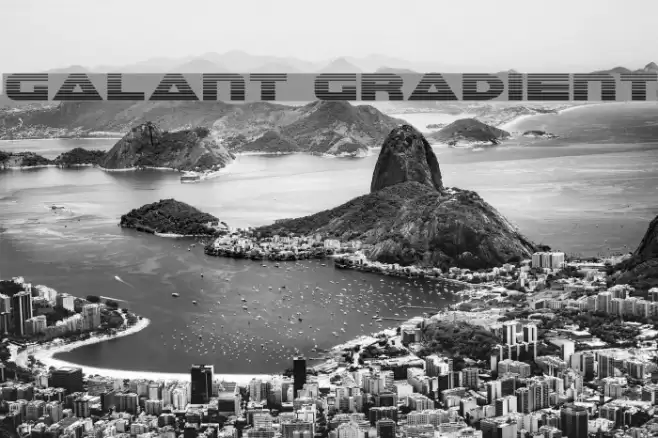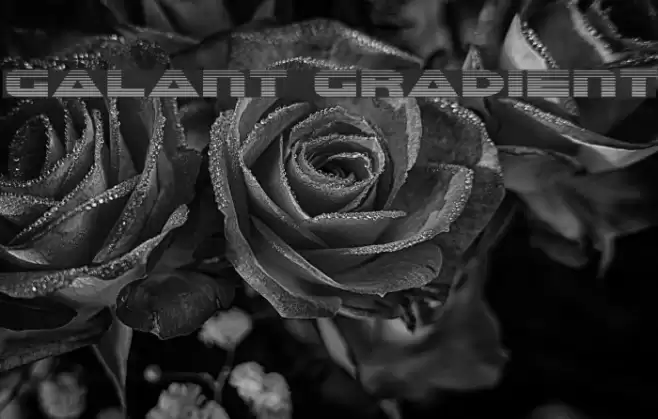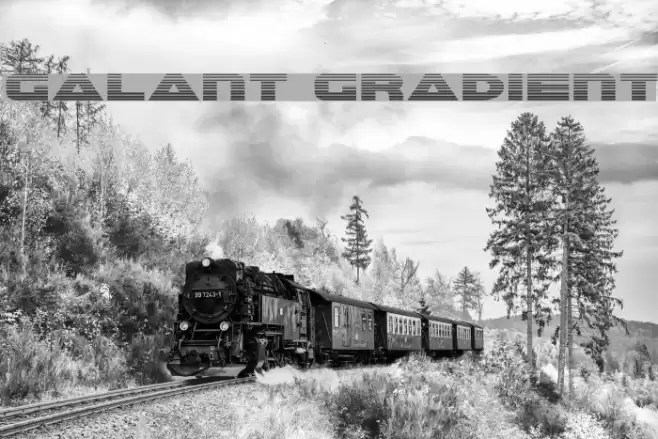
Galant Gradient Font
Galant Gradient Description
This font features a unique and striking design characterized by horizontal lines that create a gradient effect across each character. The bold, geometric shapes are modern and futuristic, giving the font a distinct visual appeal. The uppercase and lowercase letters maintain a consistent style, with the horizontal lines providing a sense of movement and depth. The numerals and special characters are equally bold and follow the same design principles, ensuring a cohesive look across all text elements. This font's distinctive style makes it ideal for projects that require a modern and eye-catching aesthetic.
A bold, modern font with a gradient effect created by horizontal lines from Uncategorized fonts.
- Proposed Projects: Ideal for branding, posters, digital art, and any project needing a futuristic touch.